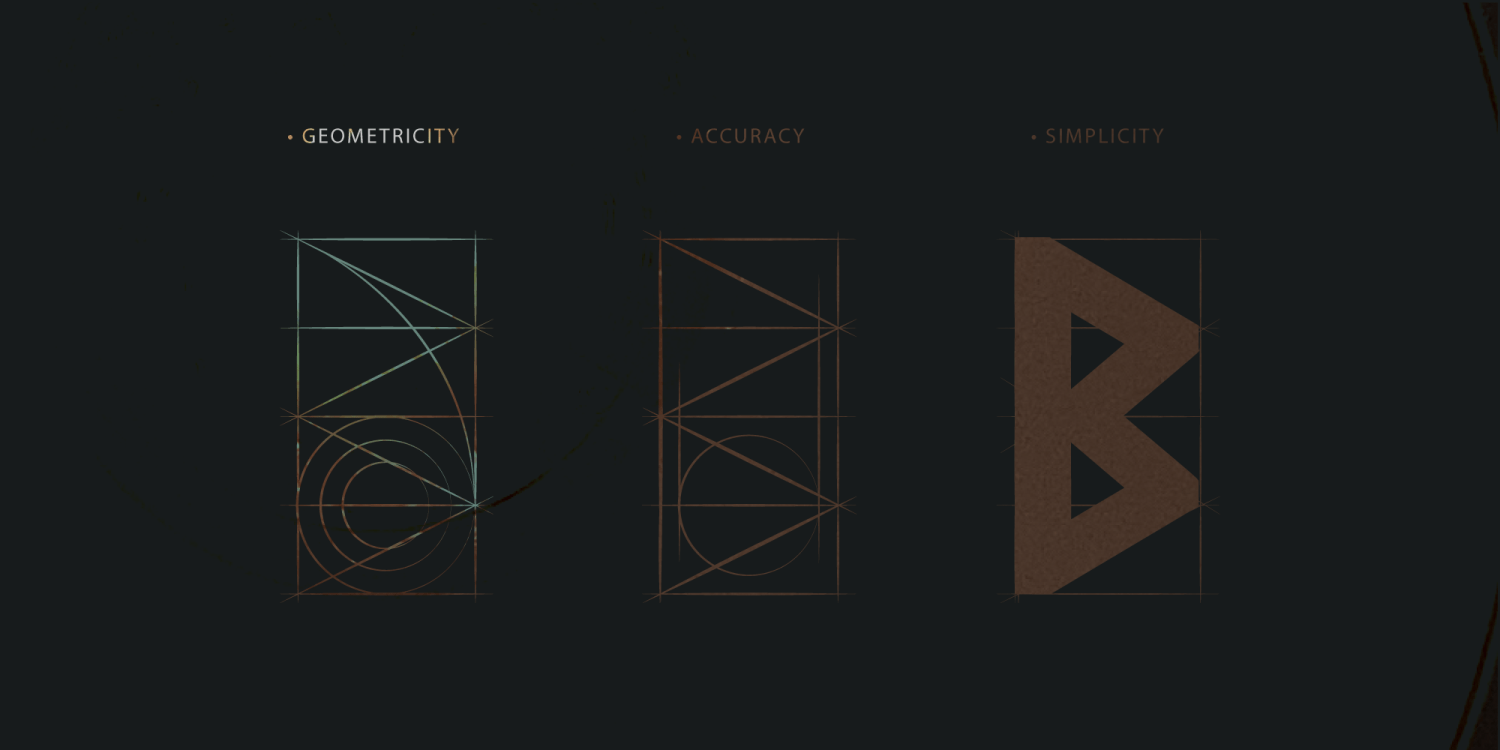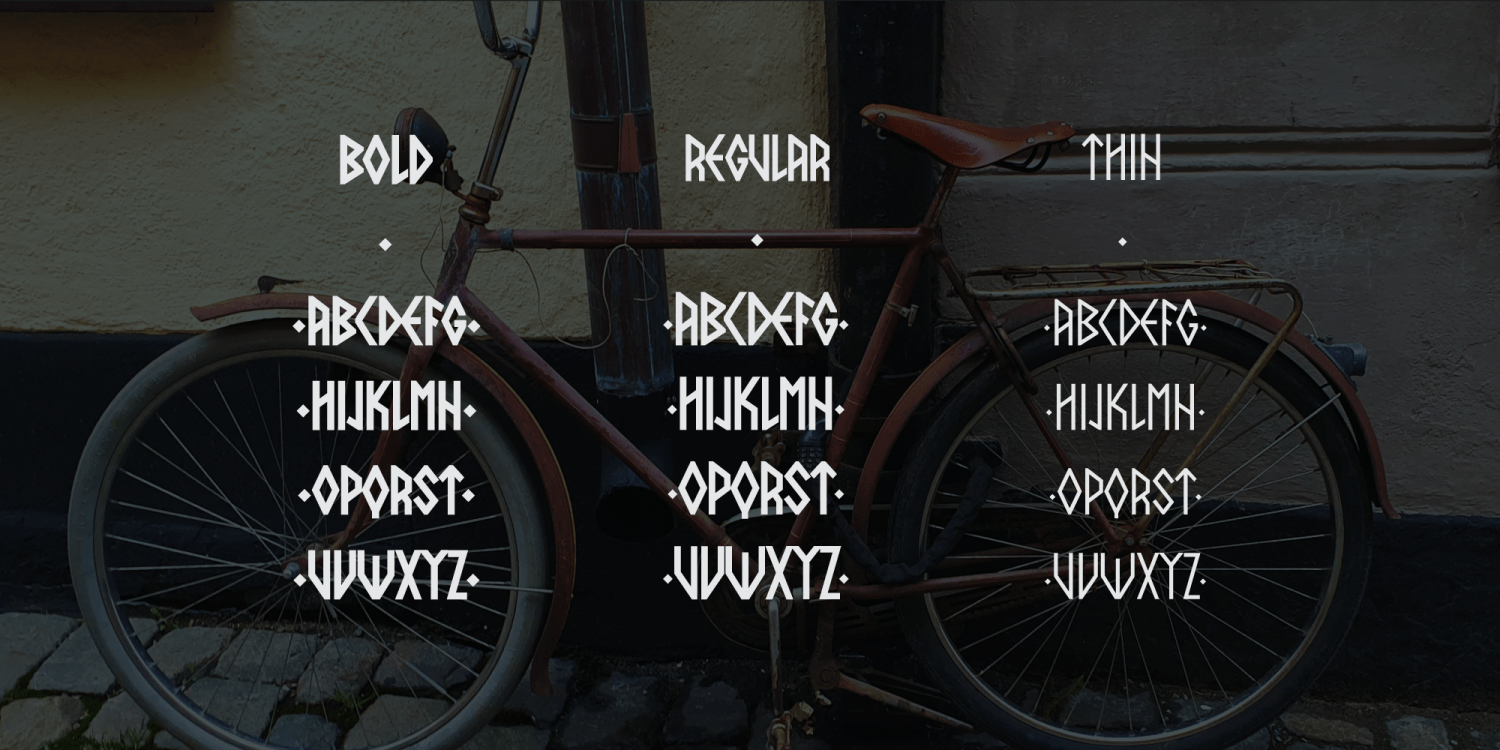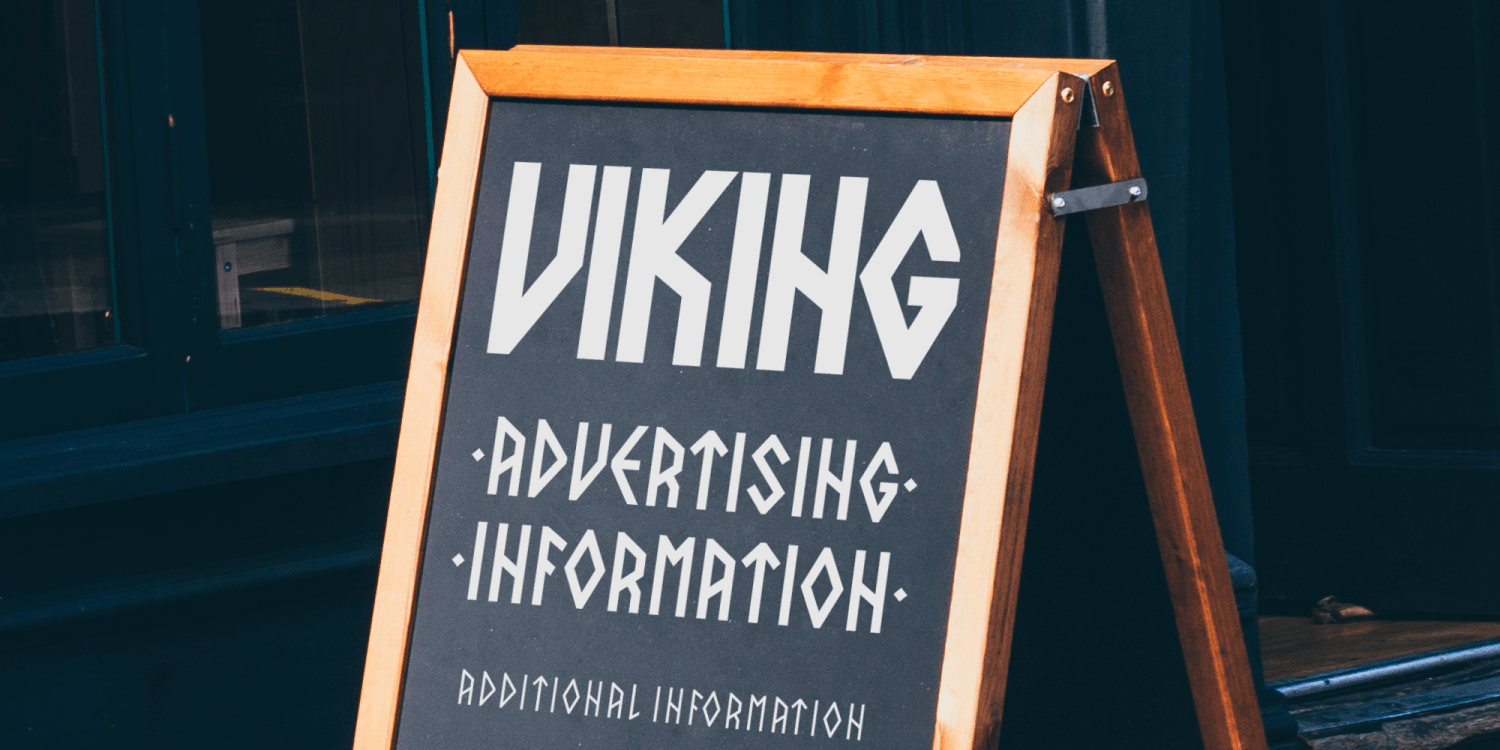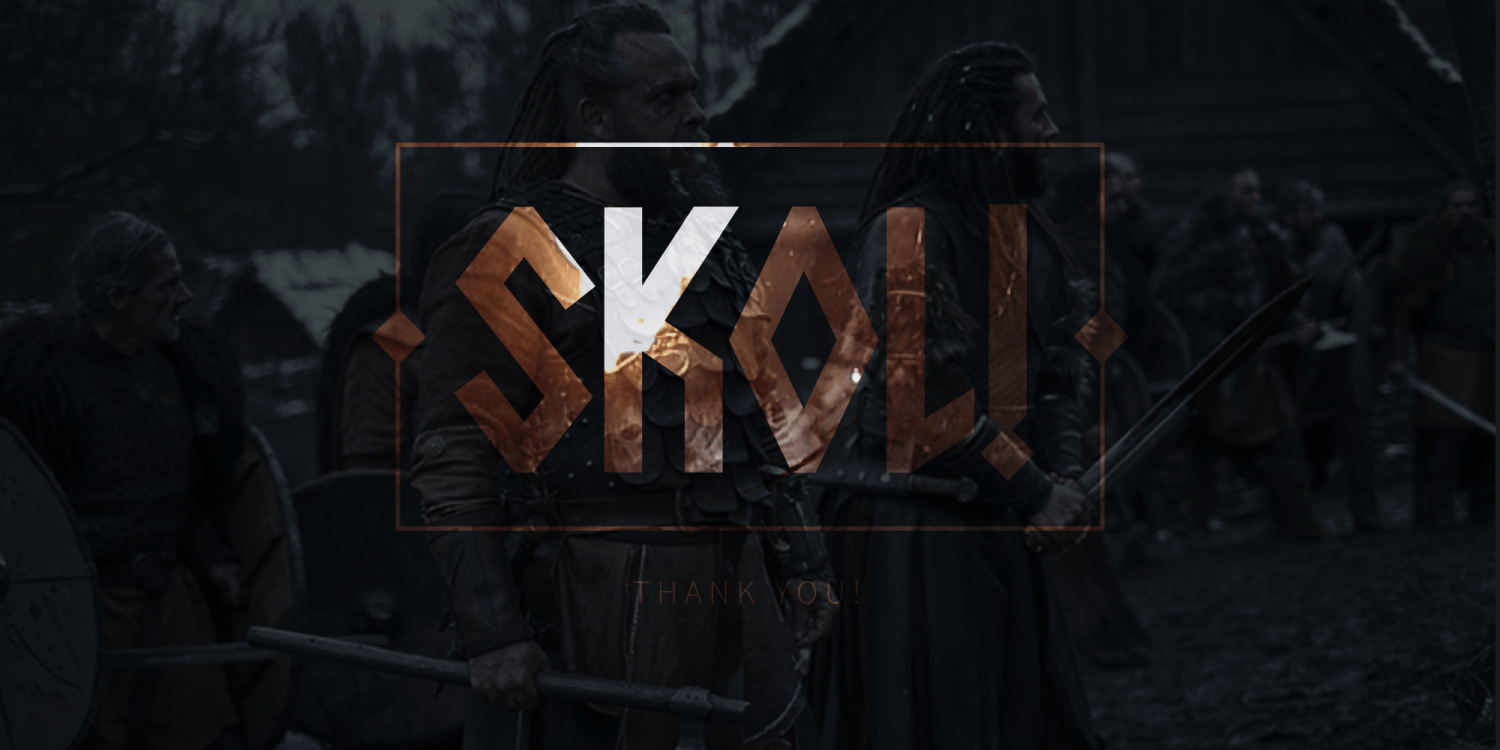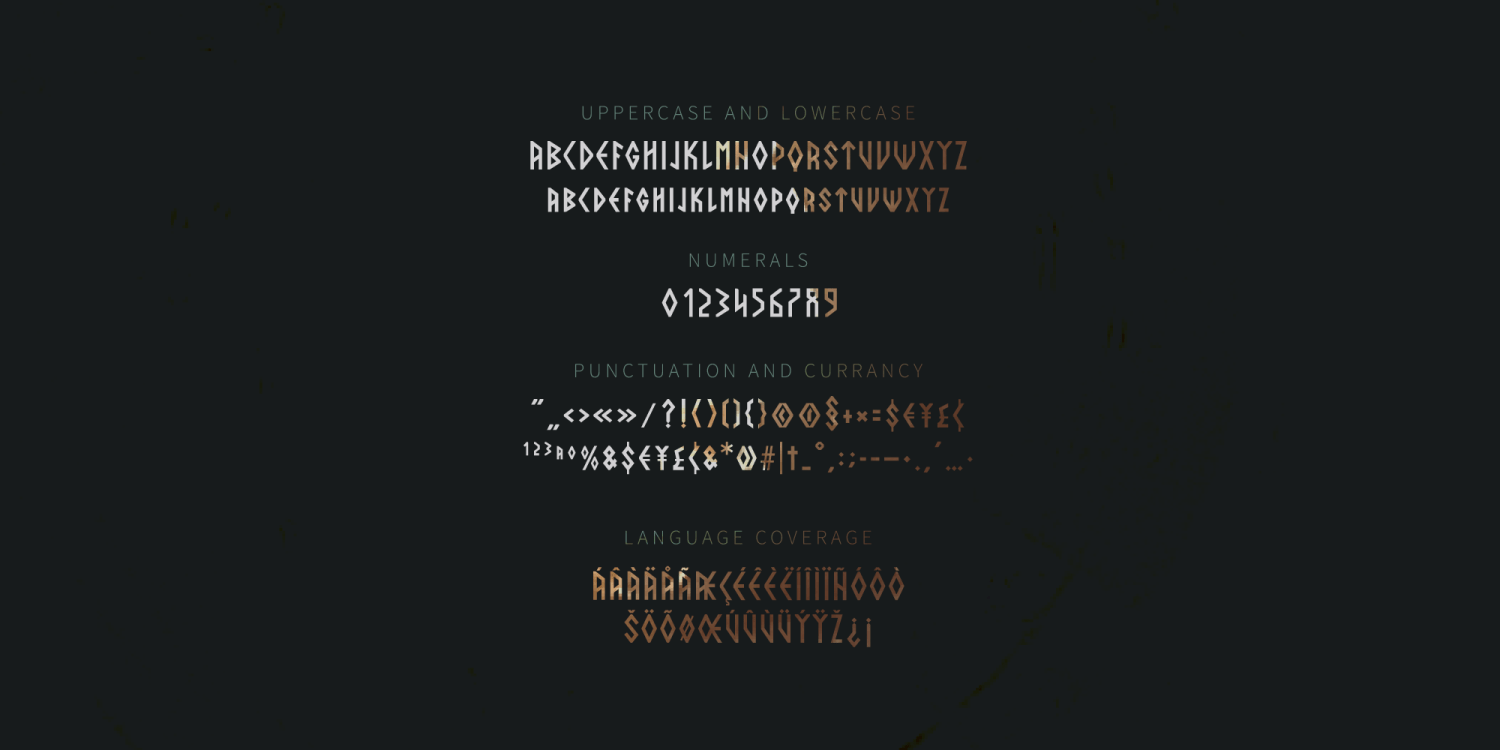
Scandinavi is a geometric display font family inspired by Scandinavian lettering, Nordic ornament and rune-like forms. Its narrow proportions, angular construction and distinctive diagonal cuts create a strong historical character while retaining a clean, contemporary appearance.
Available in Bold, Regular and Thin styles, Scandia can shift from powerful headlines and compact logos to lighter signs and decorative text. It is well suited for Nordic branding, Viking and fantasy themes, game titles, book covers, posters, packaging, apparel, signage, craft products and outdoor identities.
The family includes uppercase and lowercase letters, numerals, punctuation, currency symbols and multilingual Latin support. Scandia is especially effective in short names, titles and wordmarks that need an unmistakable Scandinavian or rune-inspired identity.